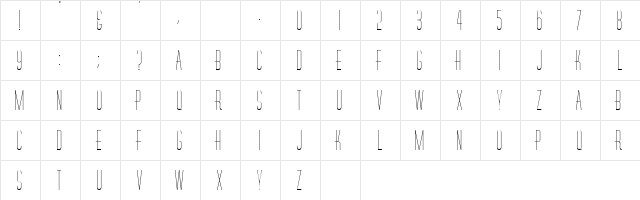
RoselleCapsSSK Regular
Design Context for RoselleCapsSSK Typeface
RoselleCapsSSK offers clean, dependable letterforms without strong stylistic allegiance, making it a practical choice for designers who need flexibility.